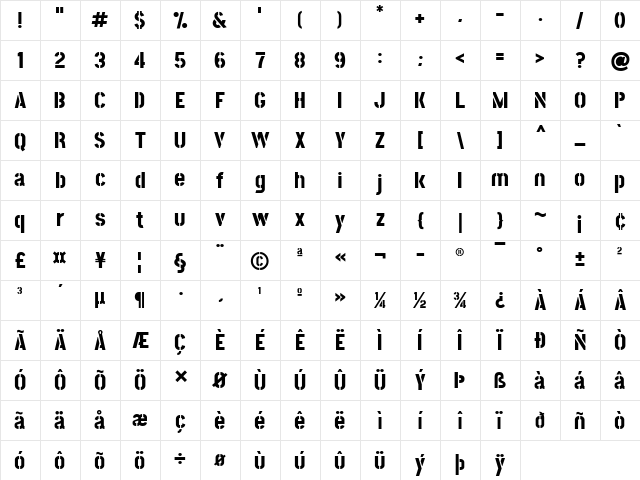
Complete Post No Bills Jaffna ExtraBold glyph index. Displaying only characters natively supported by Post No Bills Jaffna ExtraBold font.
Post No Bills Jaffna is a composed and adaptable typeface that performs quietly and consistently across a wide range of design contexts. Its bold stroke weight gives it real presence on the page.